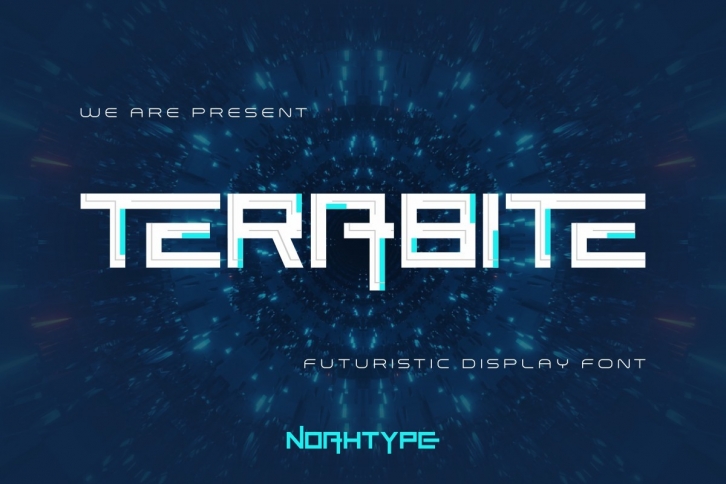
Terabite is a special futuristic sans serif font with a stunning style and lovely alternative characters. The font was inspired by aerospace technology, astronauts, speed, computer glyphs, and startup posters. It has a unique style that will bring a special effect to your designs.
It works for games, technology, events, spaceship, and many other modern things like headlines, logos, posters, titles, products, etc.